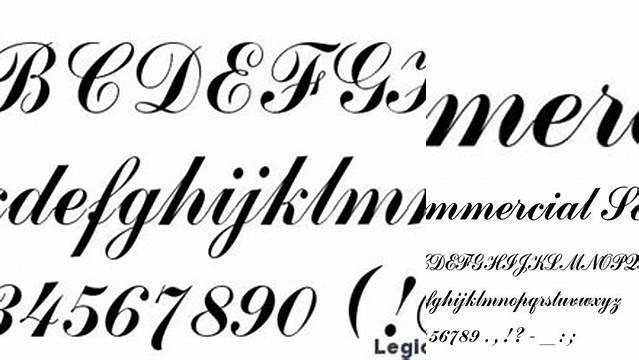
What is Commercial Script STD Font?
Alright, guys, let's dive into the world of fonts! Commercial Script STD is a beautifully designed typeface that mimics elegant handwriting. It’s one of those fonts that just adds a touch of class to any project. Imagine wedding invitations, classy logos, or even just making your website header look a bit more stylish – that’s where Commercial Script STD shines. The flowing curves and unique letterforms give it a distinctive look that’s both professional and inviting. Whether you're a seasoned designer or just starting out, understanding and utilizing fonts like Commercial Script STD can seriously elevate your creative work. You'll often see it used in branding for luxury goods, high-end restaurants, and even in the fashion industry. It’s versatile enough to be used in both print and digital media, making it a valuable asset in any designer’s toolkit. So, next time you need a font that screams sophistication, remember Commercial Script STD. You might just find it's the perfect touch you were looking for. The elegance of the script makes it a go-to choice when you want to add a personal and refined feel to your designs, setting them apart from the standard, more generic options available.
The History of Commercial Script STD
So, how did Commercial Script STD come to be? Well, the story behind it is pretty interesting! This font wasn't just whipped up overnight; it's the result of careful design and craftsmanship. Created by a team of skilled typographers, Commercial Script STD was designed to capture the essence of traditional calligraphy while still being accessible and readable in modern applications. Its origins are rooted in the desire to provide designers with a font that could bridge the gap between classic elegance and contemporary design needs. The creators drew inspiration from various historical scripts and handwriting styles, meticulously refining each character to ensure a harmonious and visually appealing typeface. Over time, Commercial Script STD has evolved through several iterations, each aimed at improving its usability and aesthetic appeal. This dedication to quality and refinement has helped it maintain its popularity and relevance in the ever-changing world of design. It's not just a font; it's a piece of art that reflects a deep appreciation for the history and tradition of typography. Understanding its history gives you a greater appreciation for its design and how you can effectively use it in your projects. The font's journey is a testament to the enduring appeal of well-crafted typography.
Key Features of Commercial Script STD Font
What makes Commercial Script STD stand out from the crowd? Let’s break down its key features! First off, it's all about those elegant, flowing strokes. Each letter connects seamlessly to the next, giving it a natural, handwritten feel. This is crucial for creating a sense of authenticity and sophistication in your designs. The font also boasts a high level of readability, despite its intricate design. This means you can use it in a variety of sizes without sacrificing clarity. Another key feature is its versatility. Commercial Script STD works well in both headlines and body text, making it a practical choice for many different projects. It also includes a wide range of characters, including uppercase and lowercase letters, numerals, punctuation, and even special symbols. This ensures that you have everything you need to create complete and polished designs. The subtle variations in line thickness and the delicate curves add depth and character to the font, making it visually appealing and engaging. These features combine to make Commercial Script STD a powerful tool for designers looking to add a touch of elegance and sophistication to their work.
Commercial Script STD vs. Other Script Fonts
Alright, how does Commercial Script STD stack up against other script fonts? There are tons of script fonts out there, but Commercial Script STD has a few unique advantages. Many script fonts can be overly decorative or difficult to read, but Commercial Script STD strikes a great balance between elegance and legibility. Its clean lines and balanced letterforms make it more versatile than some of the more flamboyant options. Compared to bolder, more modern script fonts, Commercial Script STD offers a more traditional and refined look. This makes it ideal for projects that require a touch of classic sophistication. While some script fonts can feel too casual or informal, Commercial Script STD maintains a level of professionalism that makes it suitable for a wide range of applications. It’s also worth noting that Commercial Script STD often comes with a more comprehensive character set than many free script fonts, giving you greater flexibility in your designs. So, while there are plenty of script fonts to choose from, Commercial Script STD stands out for its unique combination of elegance, readability, and versatility, making it a solid choice for any design project. It offers a timeless appeal that many other fonts struggle to capture.